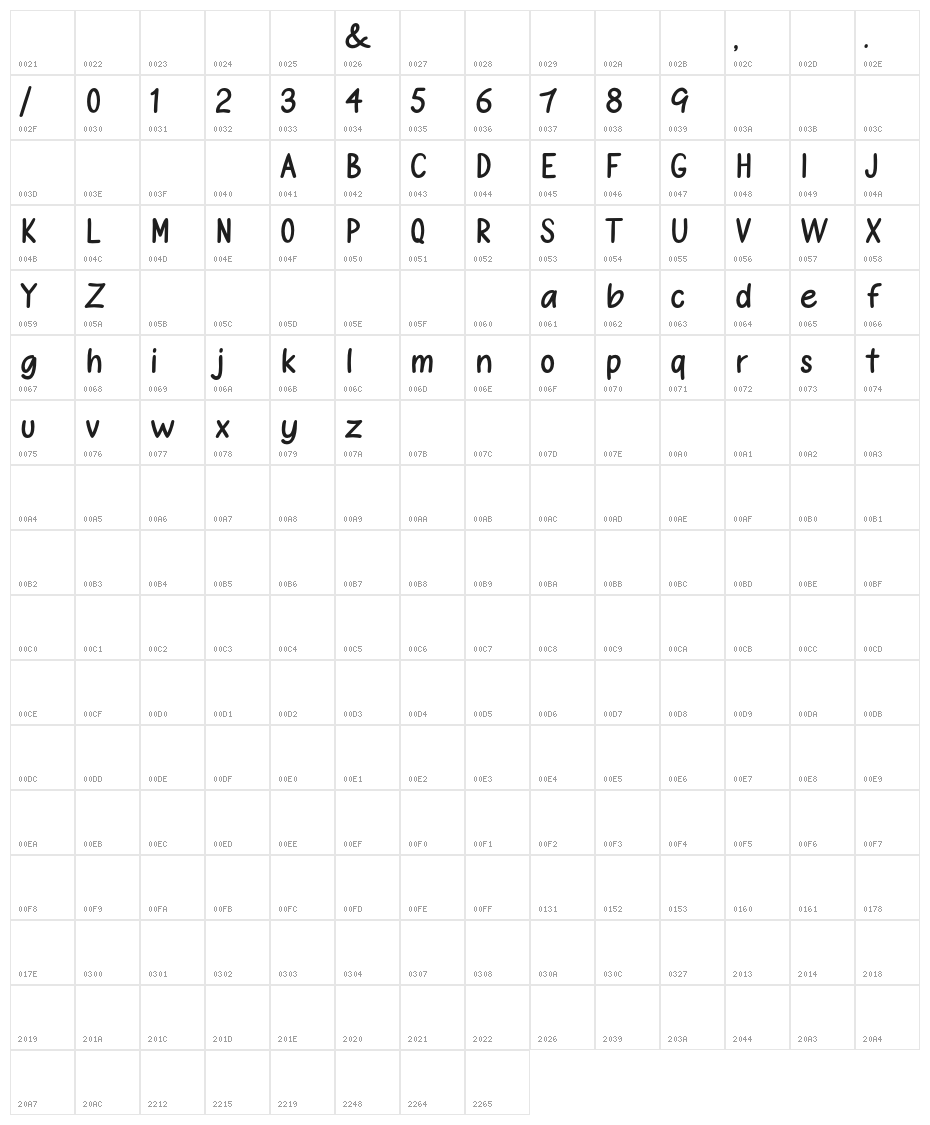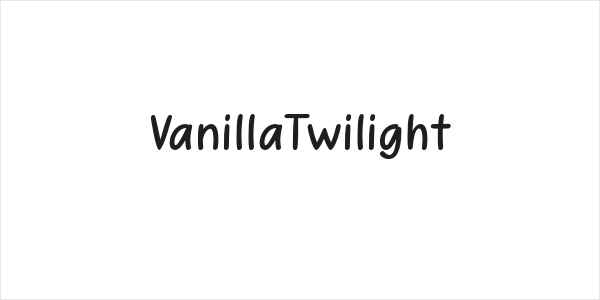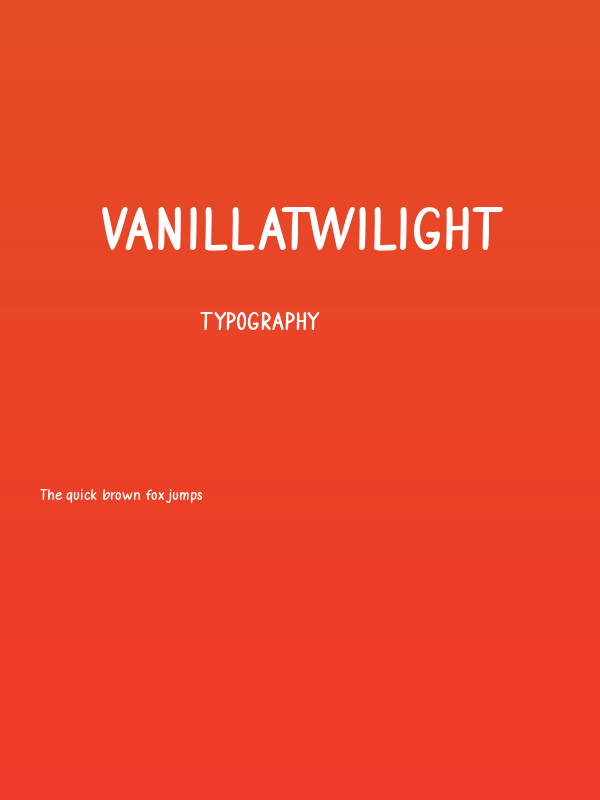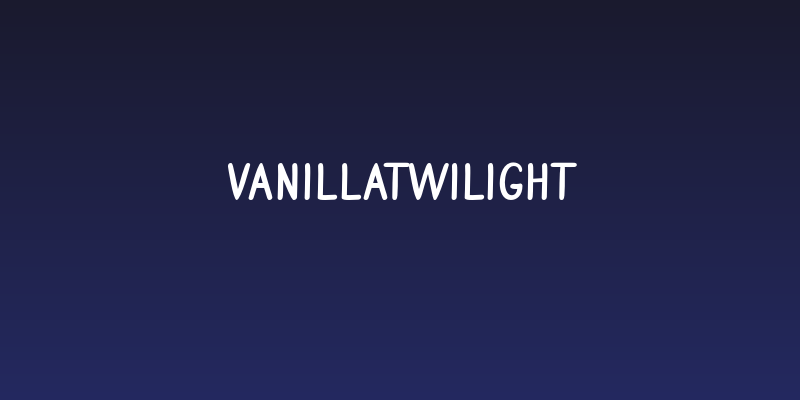
VanillaTwilight Font
VanillaTwilight Description
This playful and casual font features a handwritten style with smooth, rounded edges and a friendly appearance. The characters are slightly irregular, adding a personal touch that mimics natural handwriting. The uppercase and lowercase letters are well-proportioned, maintaining a consistent flow throughout. Numbers and special characters are designed to match the overall aesthetic, ensuring a cohesive look. This font is ideal for projects that require a warm and approachable feel, such as greeting cards, invitations, or personal branding.
| Proposed Projects | Ideal for greeting cards, invitations, personal branding, and casual design projects. |